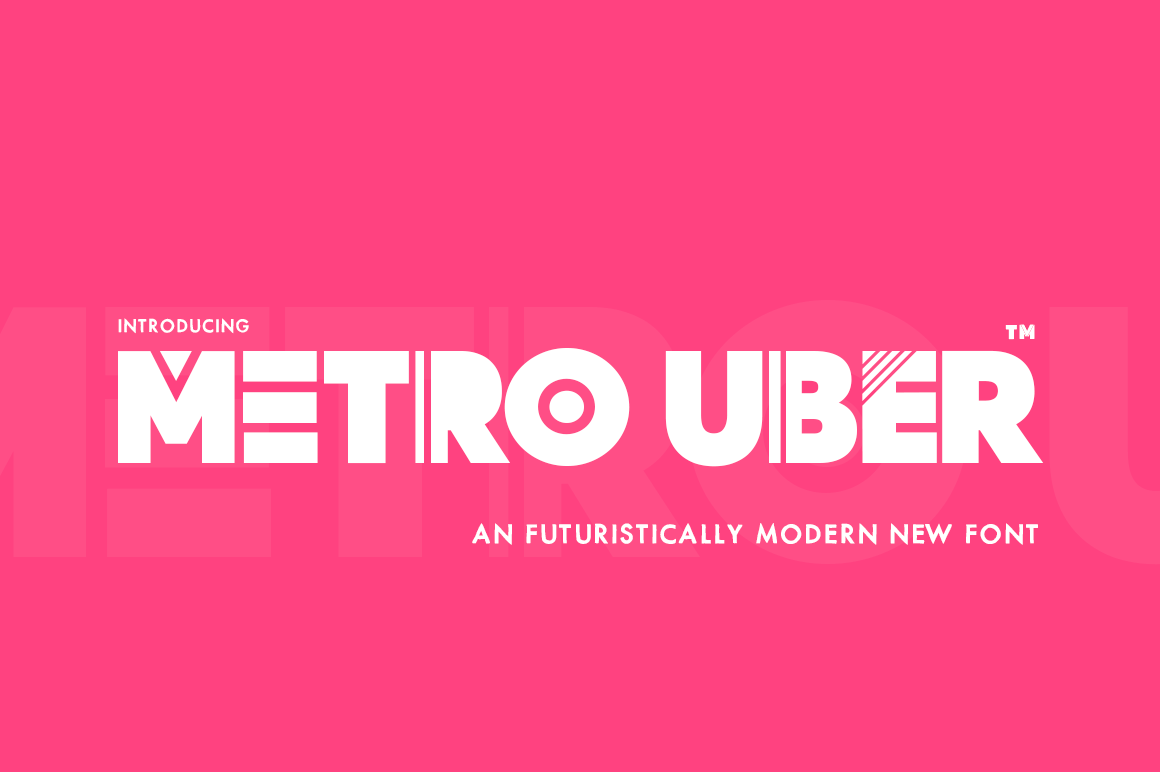
Metro Uber Font
Introducing Metro Uber.. the brand new font from salt and pepper designs that can really get your designs moving! A futuristically modern offering that has unique characters and lots of quirks! Enjoy!